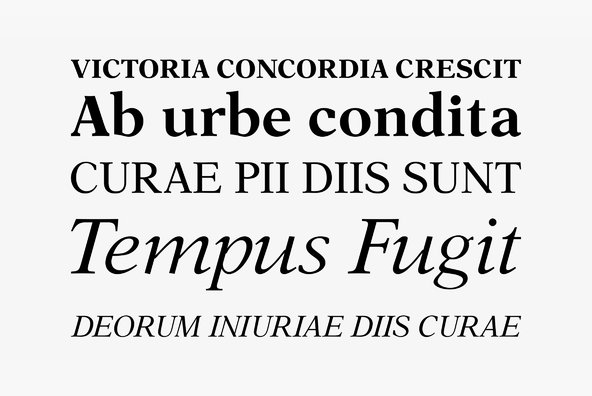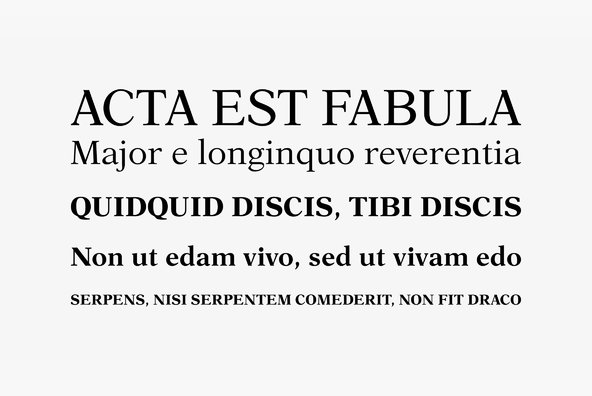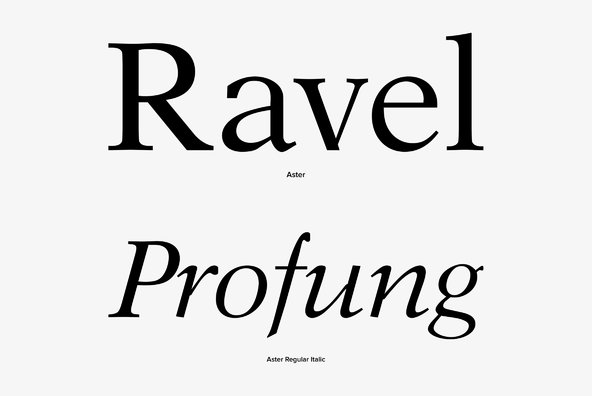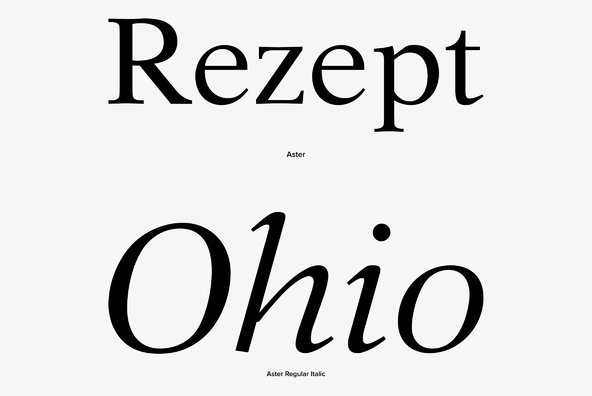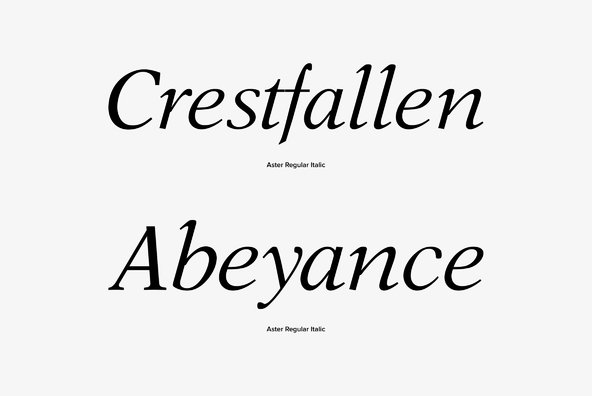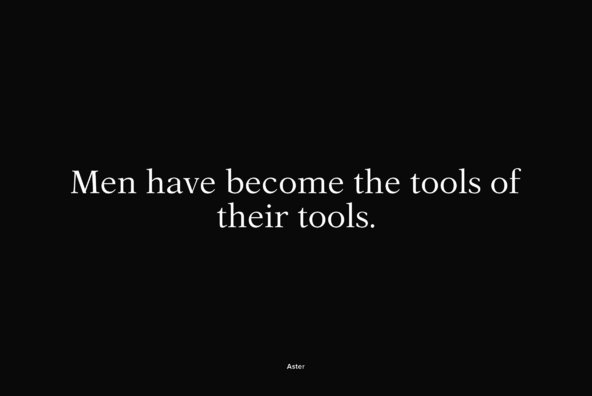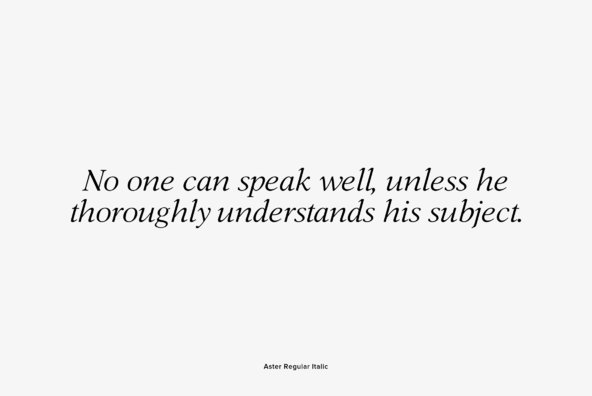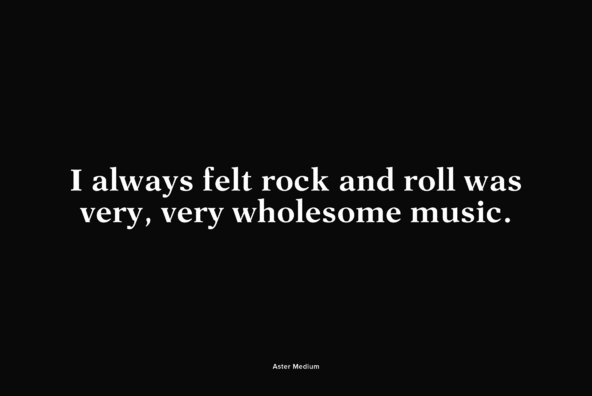
Aster was designed in 1958 by Italienne designer Francesco Simoncini, the founder of the Simoncini type foundry in Bologna, Italy. It is a text typeface designed for use in newspapers and books. Aster has short ascenders and descenders, and although its design has traits of traditional newspaper typefaces, it is a truly new and unique, economic and sturdy typeface of classic quality, still popular and in use today. Aster was designed by Francesco Simoncini in 1958